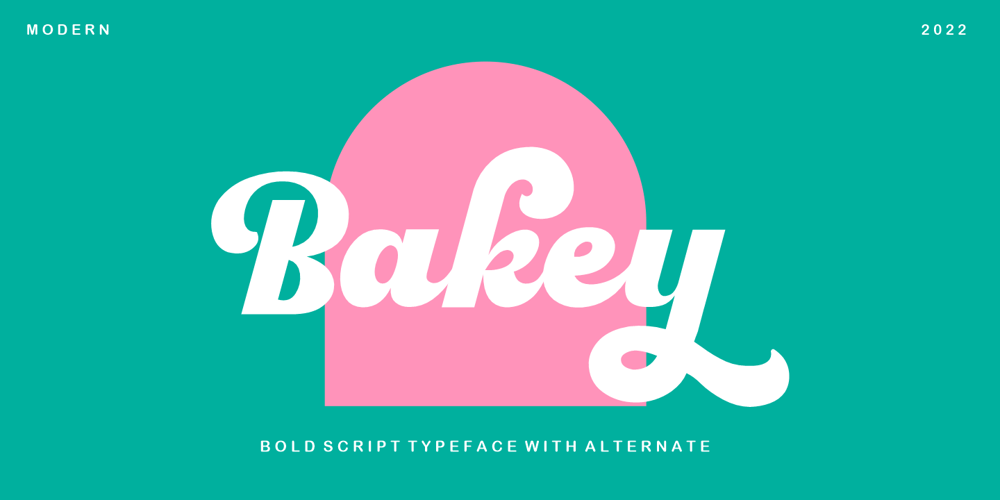
Bakey Font Family was designed by Risca Anitawati and published by Reyrey Blue Std. Bakey contains 1 styles and family package options. Bakey is a modern and bold script typeface inspired from 60’s and 70’s script lettering. With bold high contrast stroke, fun character with a bit of ligatures and alternate stylistic. To give you an extra creative work.This font is perfect for to create logos, branding, stickers, shirts, signs, posters, quotes, instagram posts, procreate designs and more! Note This font is not included with “Shadow/ Extrude”, it was created manually for display purposes only.Features :· All Uppercase and Lowercase· Number & Symbol· Supported Languages· Alternates and Ligatures· PUA EncodedHope you enjoy with our font!